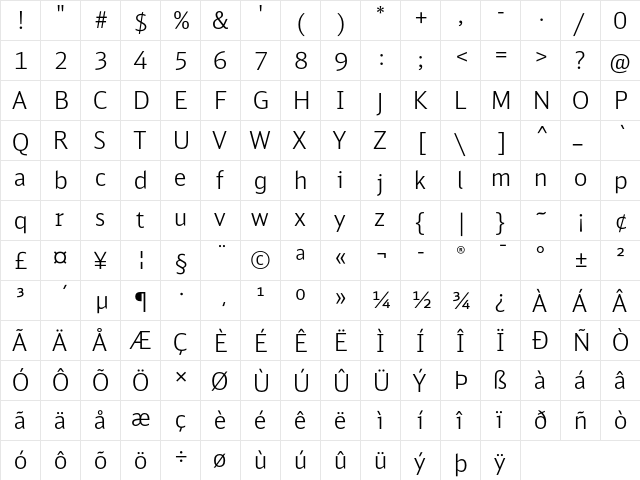
DB Head Alternate Light
Design Context for DB Head Alternate Typeface
DB Head Alternate is a composed and adaptable typeface that performs quietly and consistently across a wide range of design contexts. Its slender proportions lend an understated elegance to any composition.